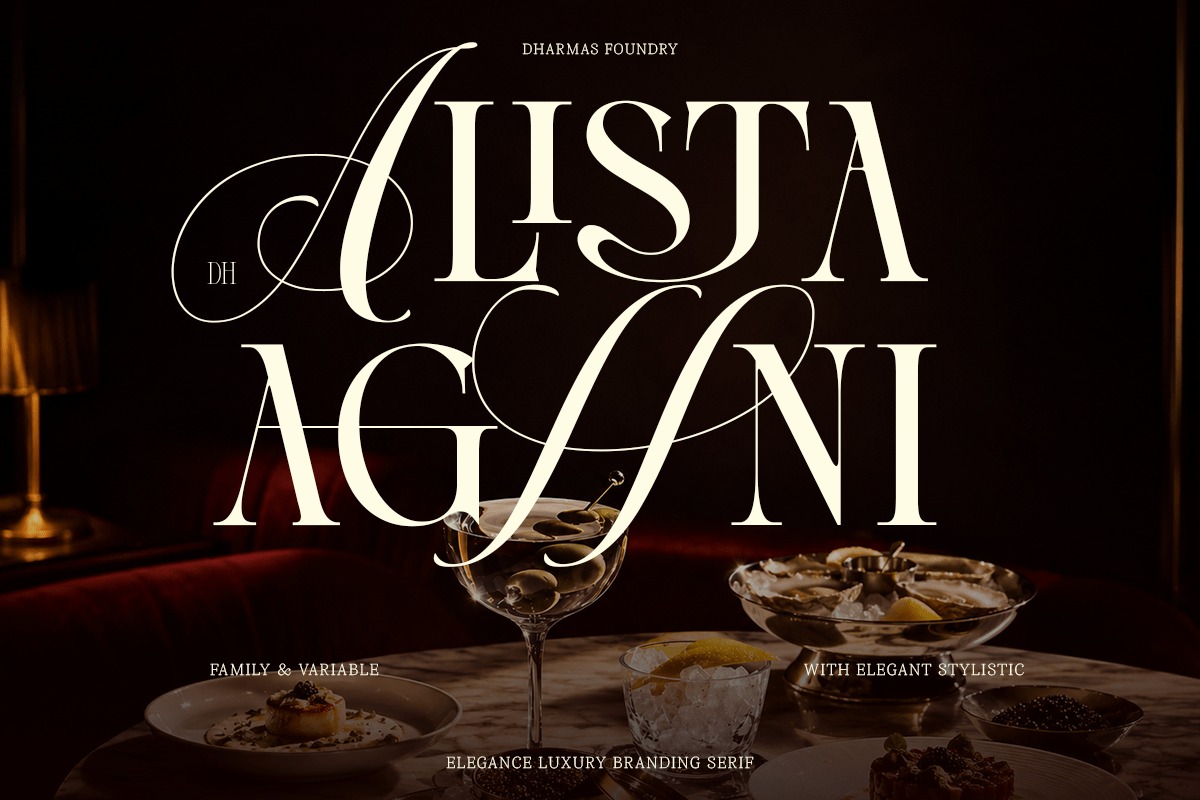
Dh Alista Aghni – Elegant Serif Font
Dh Alista Aghni – Elegant Serif Font is a premium-quality font developed to enhance your work with a polished, modern, and visually elevated look. Alista Aghni is an elegant serif font family created for luxury branding, fashion labels, beauty packaging, wedding stationery, editorial publishing, and hospitality brands. Designed for logos, magazine headlines, product packaging, invitations, and book covers, Alista Aghni creates a refined and premium visual identity. Inspired by timeless serif typography, the overall look feels sophisticated, graceful, and luxurious.
Alista Aghni Font Features:
7 Weights: Thin, Extra Light, Light, Regular, Medium, Semi Bold, Bold
103+ Elegant Alternates and Ligatures
Letters, numbers, symbols, punctuation, special alternates
Designer: Dharmas Foundry